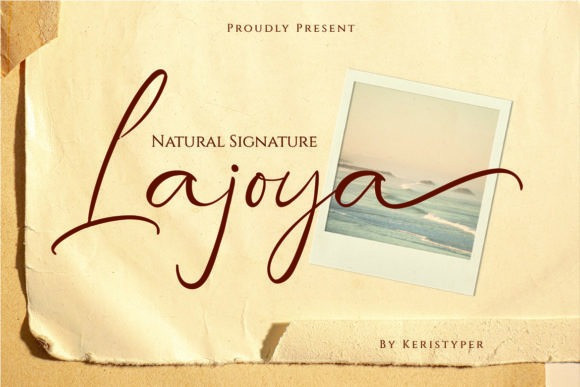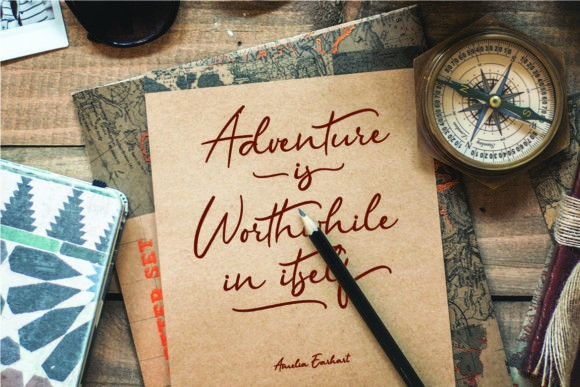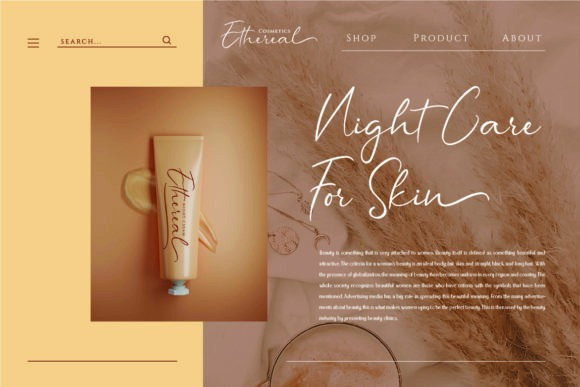
Lajoya Font
Lajoya is a unique and natural handwritten script. The appearance of the strokes is in the form of light, free-flowing brush strokes. This font is good for logo design, Social media, Movie Titles, Books Titles, short text even long text letters, and good for your secondary text font with sans or serif.